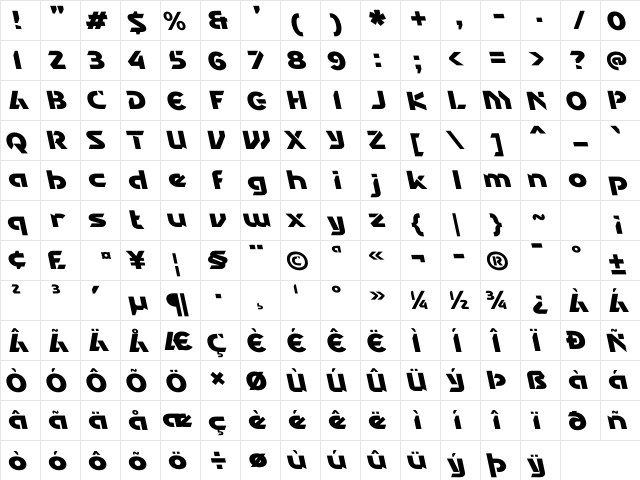
Robotic Cyborg Back Italic Regular
Design Context for Robotic Cyborg Back Italic Typeface
Robotic Cyborg Back Italic offers clean, dependable letterforms without strong stylistic allegiance, making it a practical choice for designers who need flexibility. Its italic angle brings a sense of urgency and motion to the letterforms.
Pro Tip: Try Robotic Cyborg Back Italic for annotation and caption copy alongside an upright companion — the contrast in angle creates a dynamic but ordered typographic system.